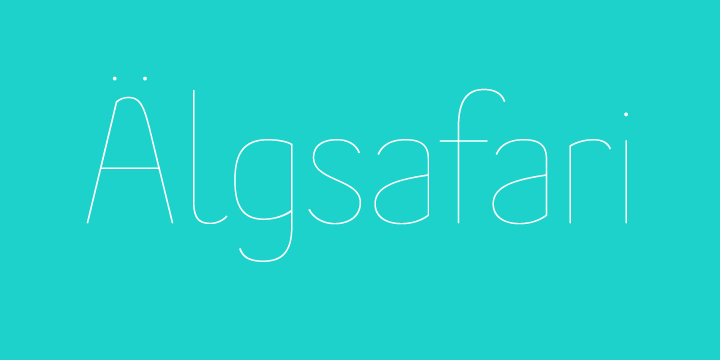
Some typefaces defy classification. These rare birds come from a space beyond man’s ability to label and categorize. Satura was born in that unusual place. Yet its origins are not so foreign that it’s overtly strange or illegible. In fact, Satura’s gentle curves and transitions are rather appealing, as if you’ve seen them before. But there has never been a face or family quite like this. More…
A creative collaboration between Göran Söderström (Stockholm) and Peter Bruhn (Malmö), Satura began with Göran’s concept for a reversed contrast typeface — one in which the horizontal strokes are heavy, rather than the more traditional vertical stress. Sparked by these ideas, Peter responded with his own thoughts. For months, the design bounced back and forth over the Nordic intertubes until the summer of 2010 when the friends met in Malmö to complete the project in person. Type design is most often a solitary undertaking, so perhaps it is this dialogue between the two Swedes that makes Satura so unique.
Derived from a Latin word meaning “mixed dish”, the Satura Suite is four related, but distinct, families: Satura, the mother, a display face with reversed contrast; Satura Parts, a stencil version; Satura Core, the contrast removed, revealing the design’s basic structure; and Satura Text, a more conventional and readable interpretation, suitable for smaller and longer text. Each family includes multiple weights. Satura Text adds italics. But expect the style range to grow in the future — Satura is a living project.